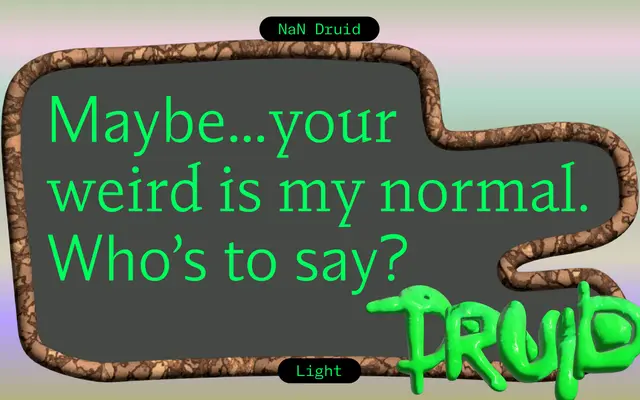
NaN Druid
NaN · Anna Khorash & Reymund Schröder · 2022
A paired serif and sans-serif family by Anna Khorash and Reymund Schröder, rooted in Jenson-adjacent forms and inflected with esoteric ornamental detail across 286 Latin-based languages.
Designed collaboratively by Khorash and Schröder and released between 2022 and 2024, the family splits into two branches that share proportions and weights but diverge in contrast: the serif runs lower contrast for text friendliness while the sans runs higher contrast for display work. Both trace back to a humanist skeleton, with the sans showing flared and tapered terminals that give away its calligraphic roots. Glyphs throughout carry hidden figurative references drawn from nature and esoterica, from ampersands to paragraph marks.
The serif branch is Jenson-adjacent with a hybrid antique-to-slab quality and lower contrast suited to text; the paired sans shares the humanist structure with higher contrast and flared terminals betraying calligraphic origins. The family straddles display and text use across both subfamilies.